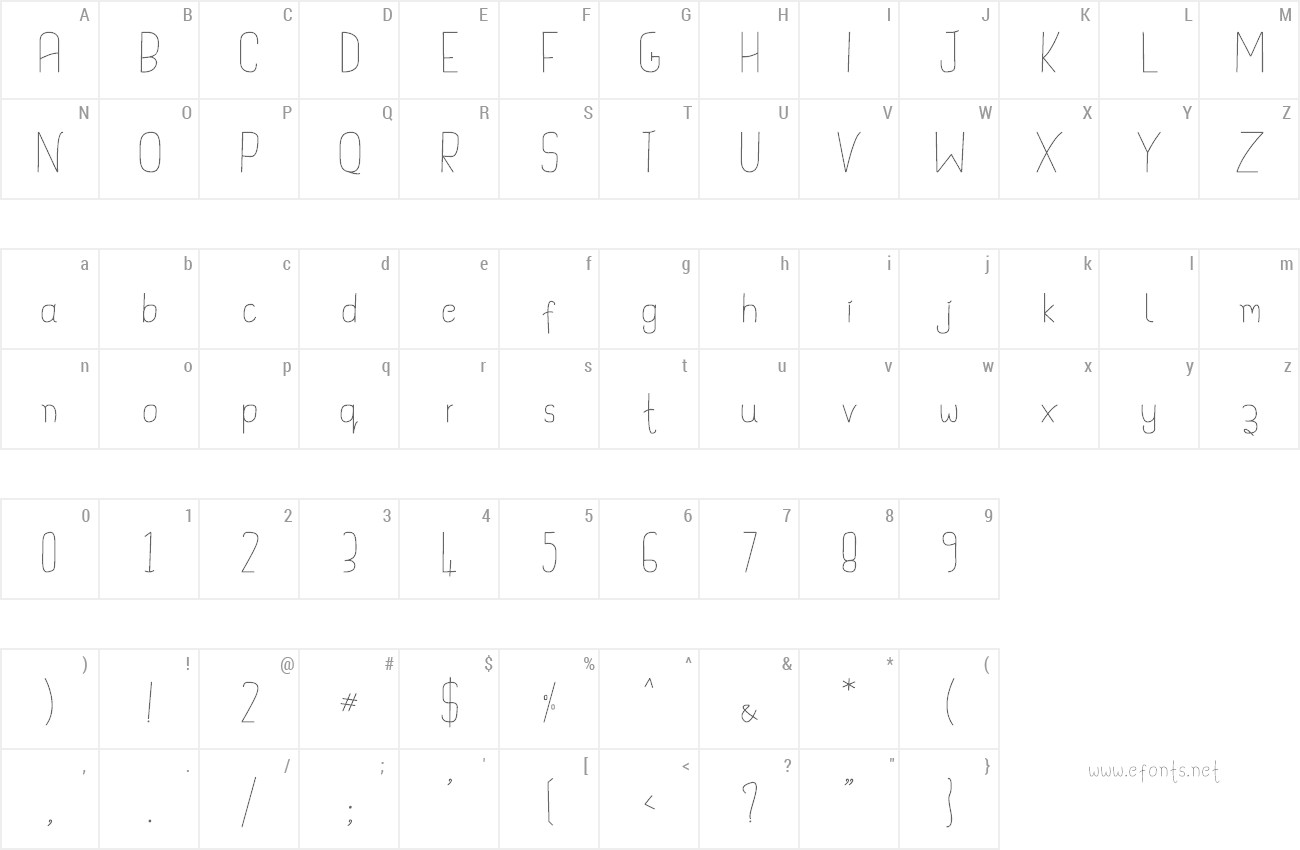
Preview and download Handypot Font. Created by Dasagani Ramesh in Script Handwritten styles with Free for personal use license.
| Font name: | Handypot |
| Author: | Dasagani Ramesh |
Handypot is Playfull, simple and regular type monoline font - it will be good use for kids games, apps, casual writings, books and invitations and more. Free For Personal Use Only. For Commercial Use Please Contact me from here : mail : master002@live.in Purchase commercial license from here : https://crmrkt.com/Jv5z9R |